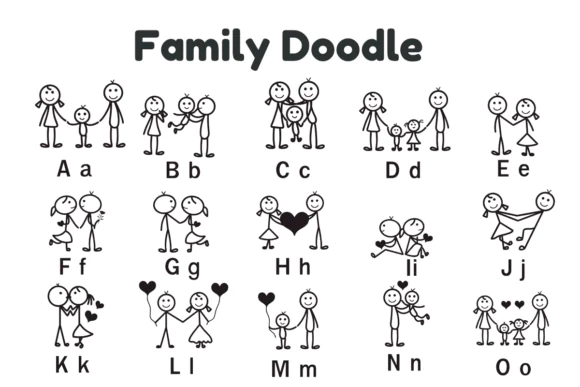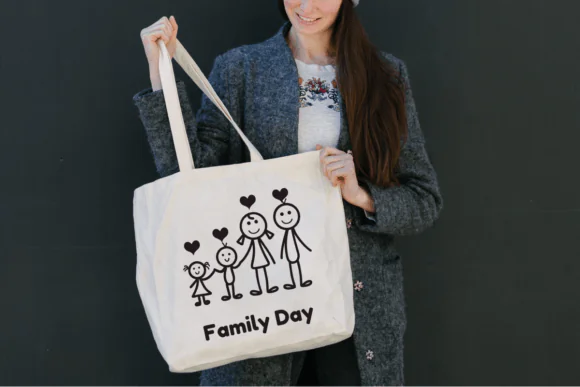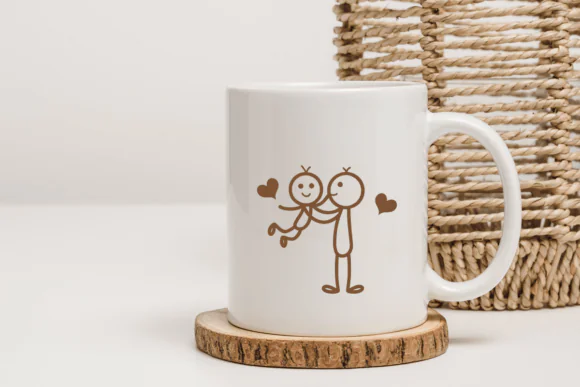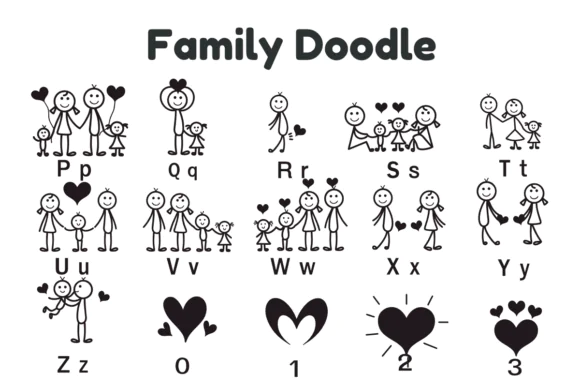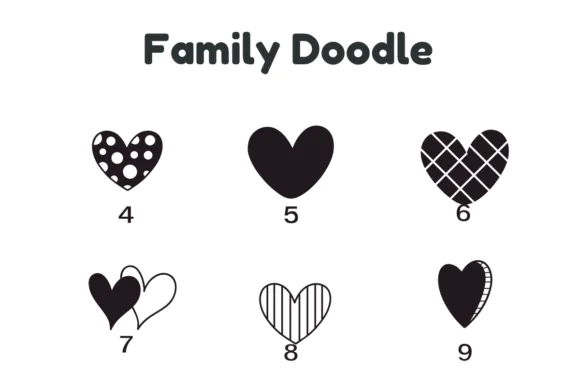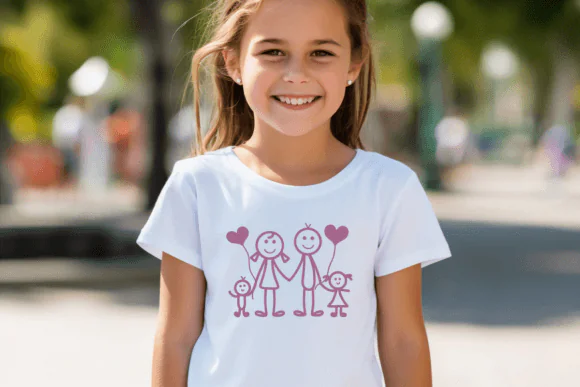
Family Doodle Dingbat Font | Cute Stick Figure Family Illustration Typeface for Scrapbooking, Greeting Cards, Kids Designs, DIY Crafts & Family-Themed Projects
Celebrate love, family, togetherness, and meaningful connections with Family Doodle Font, a charming dingbat font filled with adorable stick figure family illustrations. Designed with playful and heartwarming family-themed doodles, this font is perfect for creative projects that need a personal, cute, and emotional touch.
Family Doodle Font is ideal for crafters, scrapbookers, teachers, parents, stationery creators, printable sellers, social media designers, and DIY makers who want simple and expressive family illustrations for their designs. Its cute stick figure style makes it easy to create warm and friendly layouts for family memories, children’s projects, handmade cards, and personalized gifts.
Use this font for scrapbooking, greeting cards, family photo albums, kids’ worksheets, classroom materials, DIY craft projects, planner stickers, wall art, invitations, social media posts, printable family quotes, memory books, mugs, t-shirts, tote bags, and personalized keepsakes.
Whether you are designing a Mother’s Day card, Father’s Day printable, family reunion invitation, children’s activity sheet, scrapbook page, or heartfelt family-themed wall art, Family Doodle Font adds a whimsical and loving touch to every project.
• Scrapbooking
• Greeting cards
• Kids’ designs
• DIY craft projects
• Family photo albums
• Memory books
• Planner stickers
• Classroom printables
• Family reunion invitations
• Mother’s Day designs
• Father’s Day designs
• Wall art prints
• Personalized gifts
• Family-themed merchandise
Key Style Features
• Family-themed dingbat font
• Cute stick figure illustrations
• Heartwarming family poses
• Playful and whimsical doodle style
• Great for scrapbooking and cards
• Perfect for kids and family-friendly designs
• Easy to use for DIY and printable projects
• Adds a personal emotional touch to creative work